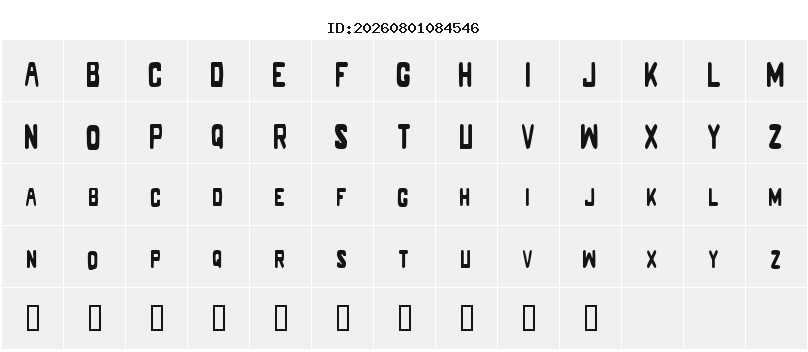
• Font Name: LM Caps Thin
About LM Caps Thin.ttf
LM Caps Thin.ttf is a modern, elegant sans-serif font designed for ultimate readability and visual harmony. Perfect for branding, headlines, web design, and print materials.